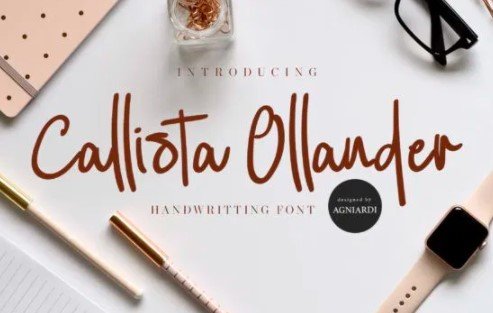
Hello designers, today we are introducing the most fitting handwritten typeface that looks fantastic in all kinds of projects you might want to use. It’s the Callista Ollander Handwritten Font, which appears great on both large screens and big designs.
It comes with natural good-looking handwritten textures that is attractive, eye-catchy, and astonishing font which is loved by many professionals.
View Of Callista Ollander Handwritten Font
This is great stylish, cool and attractive handwritten typeface that comes with tons of clear features which will make your designs more attractive and unique. It can be usable with enlighten your destiny font.
The typeface is appropriate to utilize in such kinds of works that required great natural handwritten designs. You can utilize this awesome typeface as pairing with the combination of vivaldi font.